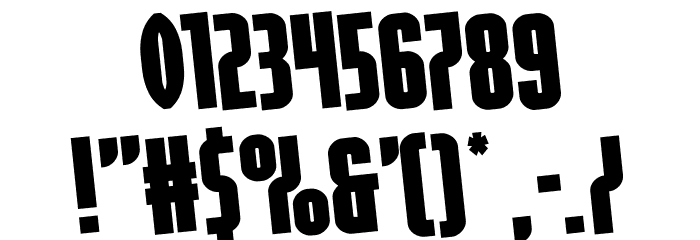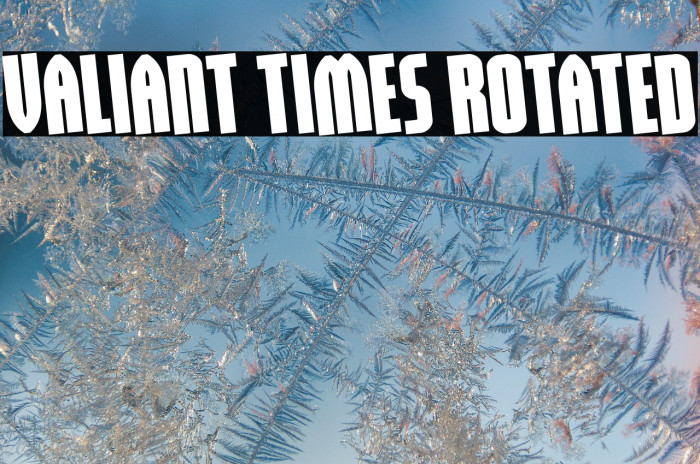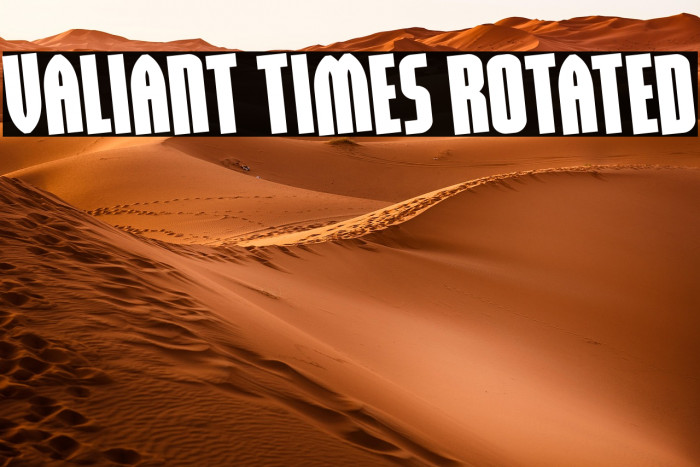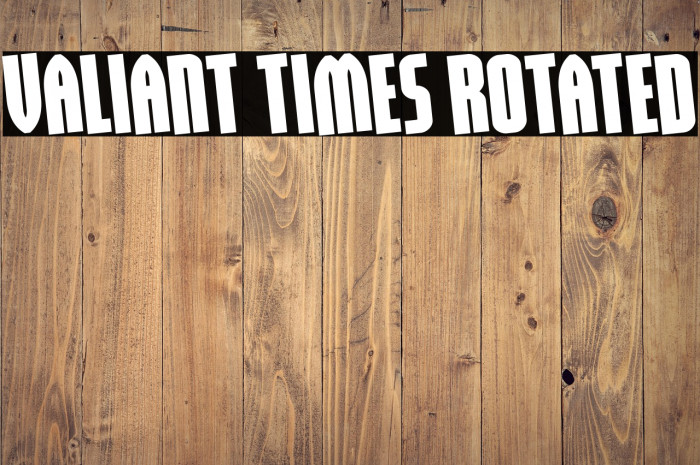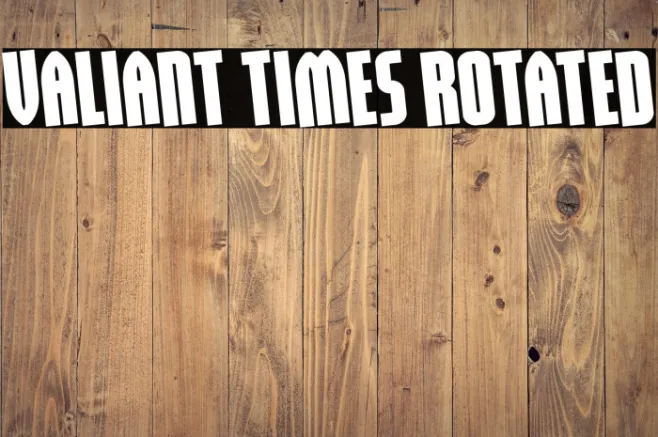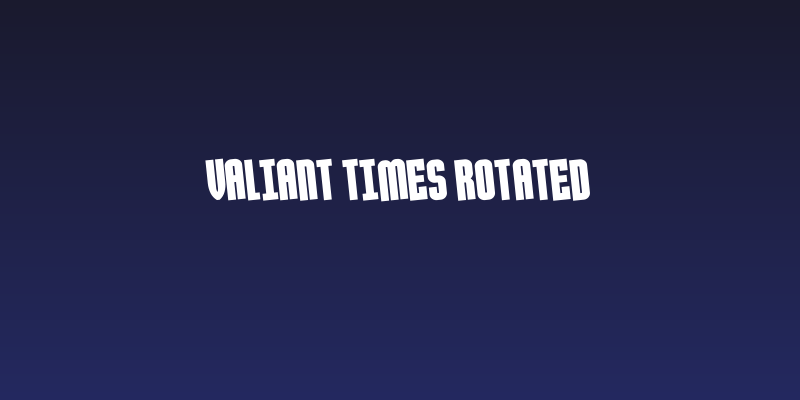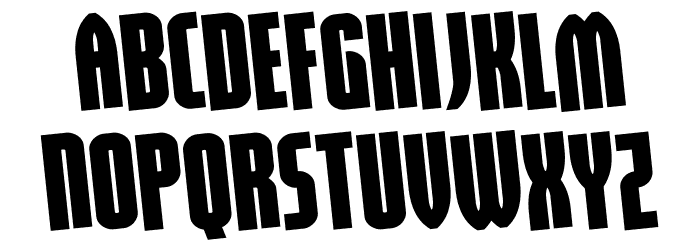
Valiant Times Rotated Font
Valiant Times Rotated Description
This font features bold, impactful characters with a strong presence. The letters are uniformly thick, giving them a robust and solid appearance. The style is slightly condensed, which adds to its assertive look. The characters are slightly slanted, adding a dynamic and energetic feel. The numbers and special characters maintain the same boldness and style, ensuring consistency across all elements. This font is ideal for making a statement, with its high contrast and strong visual impact.